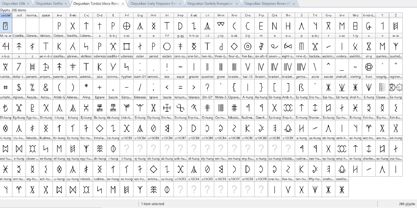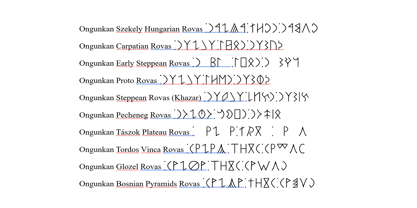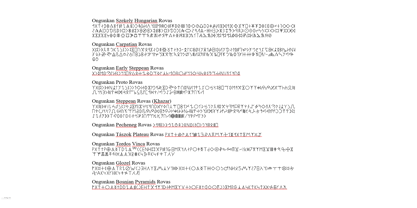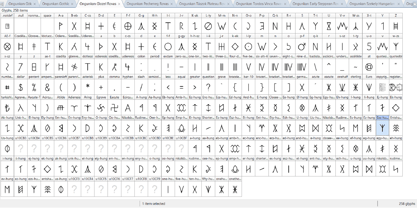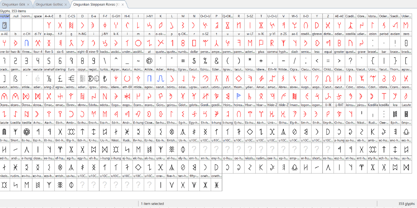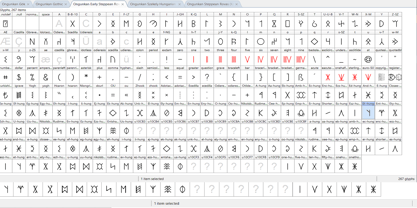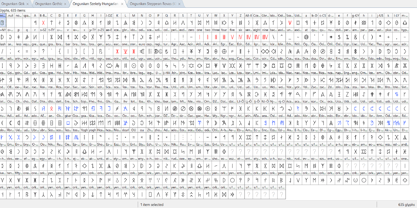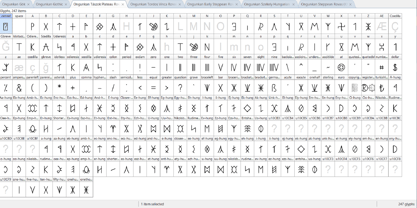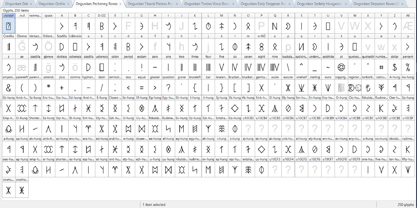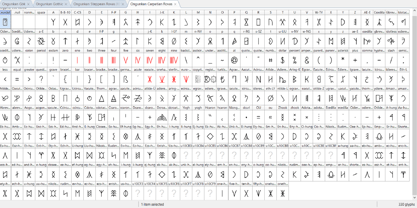
Ongunkan Hun Rovas
The Ongunkan Hun Rovas Font Family was designed by Osman Nuri ALKAN and published by Runic World Tamgacı. Ongunkan Hun Rovas contains 10 styles and family package options. More about this family
It is now undeniably accepted that the Hungarian Szekely Rovas runic script is a western branch of the Turkic runic script. I have studied all these versions in this font family. I have grouped them all together as a family. The Ongunkan Szekely Hungarian Rovas font is a font that includes both Latin-based derivatives and Unicode-based characters. It also contains the Turkic runic script in Unicode. The Bosnian Pyramids Rovas, Carpatian Rovas, Early Steppean Rovas, French Glozel Rovas, Pecheneg Rovas, Proto Rovas, Steppean Rovas (Khazar), Tászok Plateau Rovas, and Tordos Vinca Rovas fonts are all Latin-based. This family is a complete academic family.